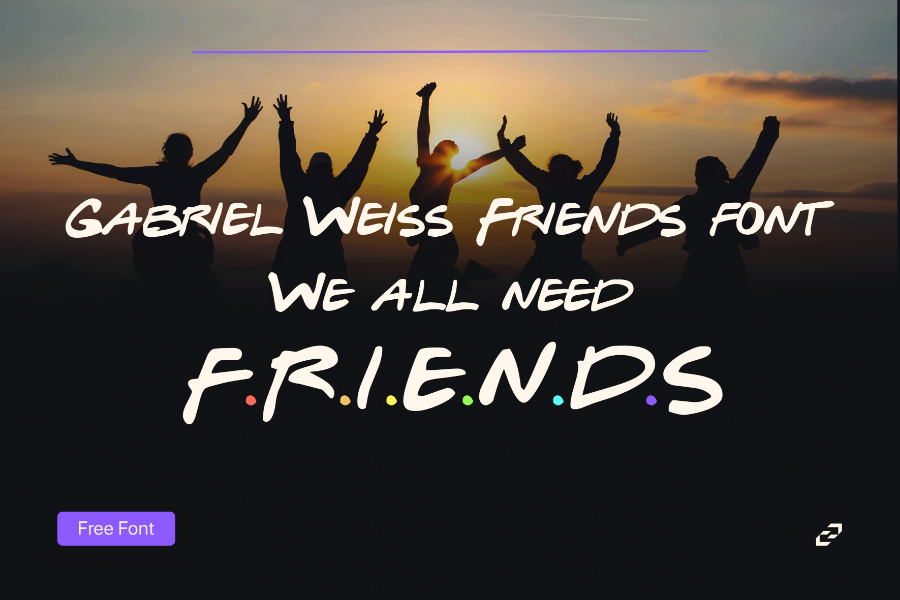
Gabriel Weiss Friends - Whimsical Script for Social Media & Creative Projects
A fun and friendly script font designed to evoke warmth and connection—perfect for social posts and creative graphics.
Style: Casual Handwritten Script
Best For: Apparel, greeting cards, quotes, social content, community-focused branding.
Key Features:
- Nostalgic pop culture inspiration
- Relaxed handwritten style
- Works for fun, informal projects